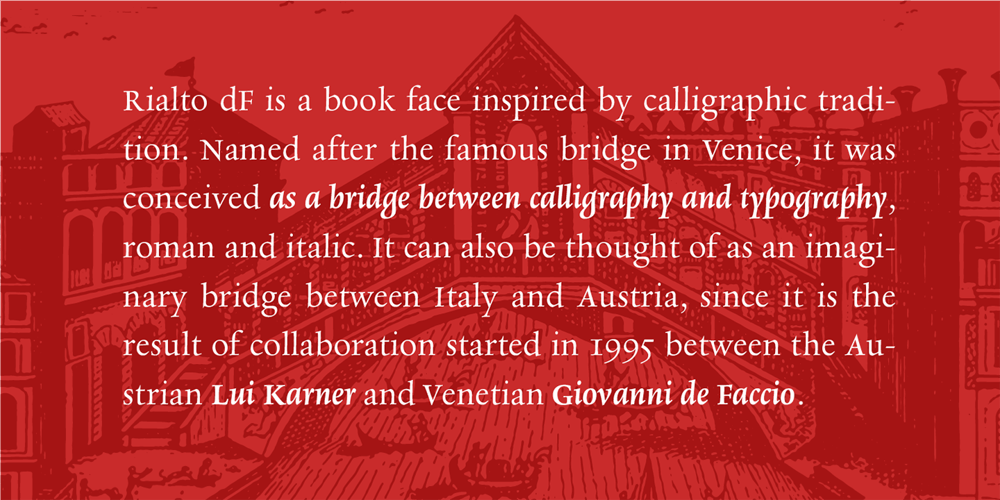
Rialto Piccolo dF Font Family was designed by Giovanni De Faccio and published by CAST. Rialto Piccolo dF contains 4 styles and family package options. Rialto dF is a book face inspired by calligraphic tradition. Named after the famous bridge in Venice, it was conceived as a bridge between calligraphy and typography, roman and italic. It can also be thought of as an imaginary bridge between Italy and Austria, since it is the result of collaboration started in 1995 between the Austrian Lui Karner and Venetian Giovanni de Faccio.The letterforms of Rialto dF were drawn directly in digital format with a starting point deriving from humanistic letterforms memorized in the hearts, minds and the manual ability of its designers… As tradition demands, uppercase, numerals and punctuation are used in combination with italics – the same solution adopted by Francesco Griffo when he cut his first italic for the Virgil, the first of the octavo series printed and published in Venice by Aldus Manutius in 1501.Rialto dF comes in two optical weights: Piccolo, for up to 14 pt, and Grande for 16pt and above. Alternate characters and various dingbats are also provided and these are available through OpenType features developed by type designer and technician Karsten Luecke.